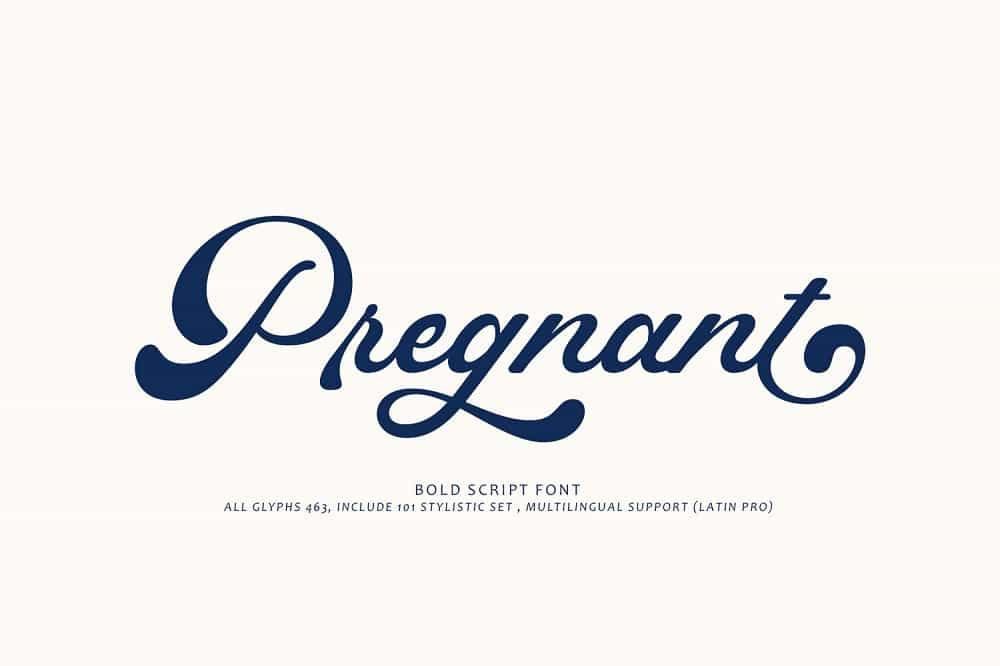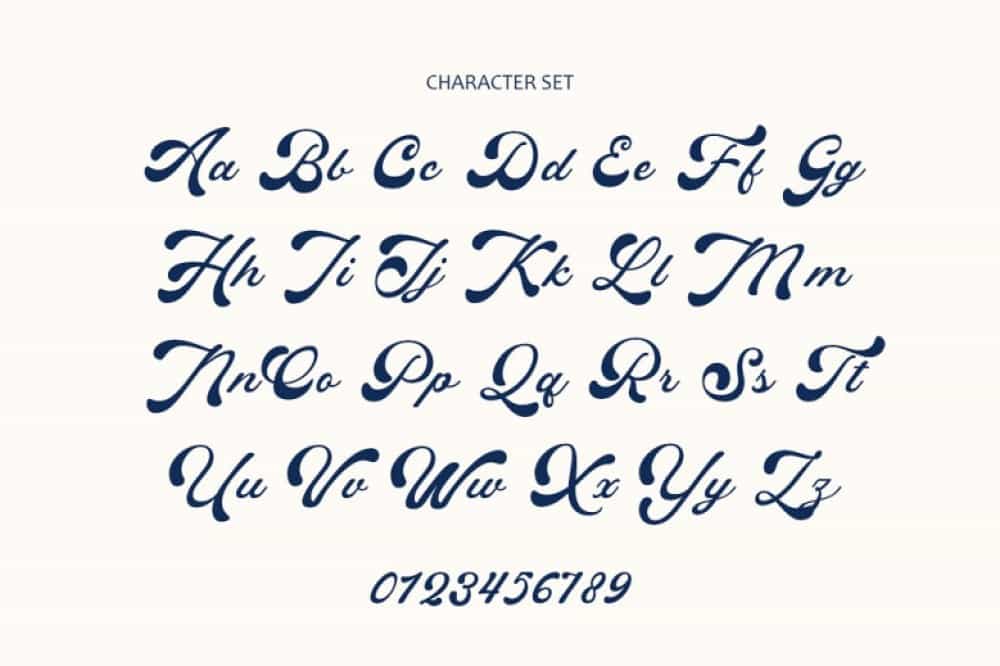
Pregnant is a calligraphy font that is developed with the style of retro theme along with the attitude of today’s script font. Pregnant has a nostalgic feel to it and is inspired by old school signs, posters, and lettering. It has a very energetic feel due to the thick and solid lines, together with the playful bends, and will be ideal for projects that are made to have a vintage touch.